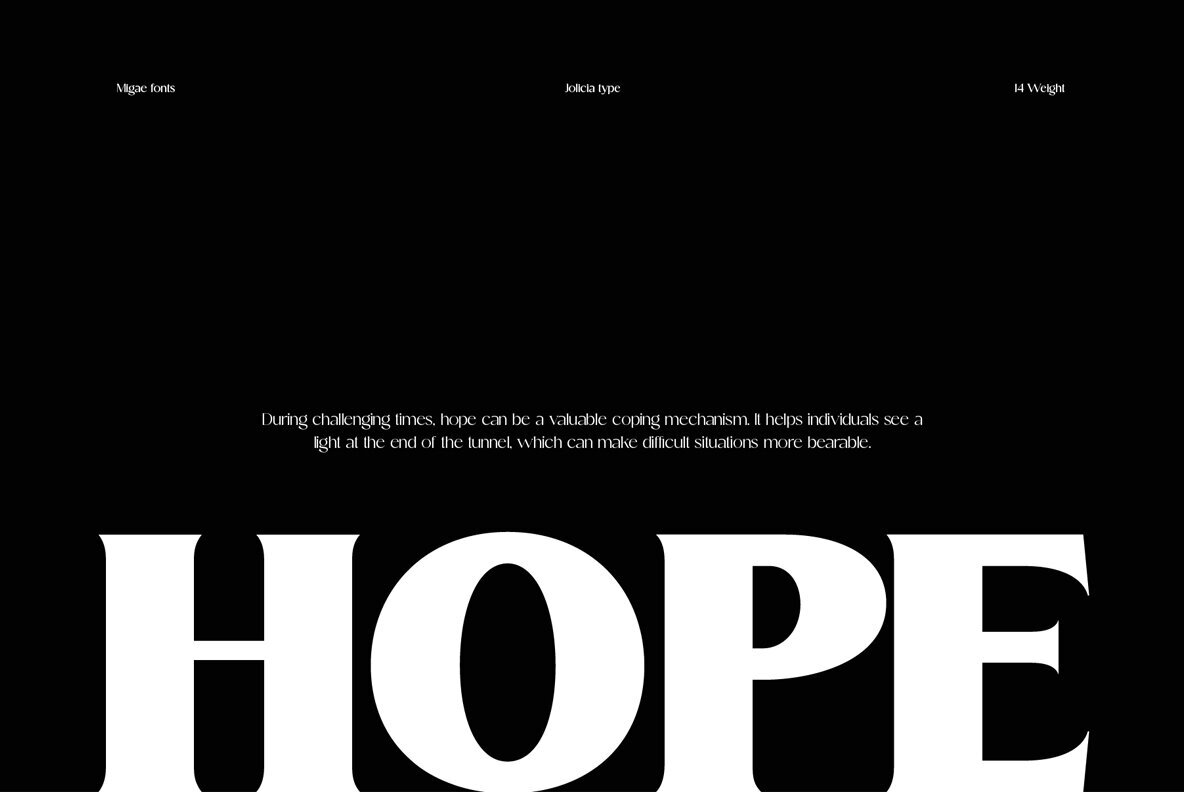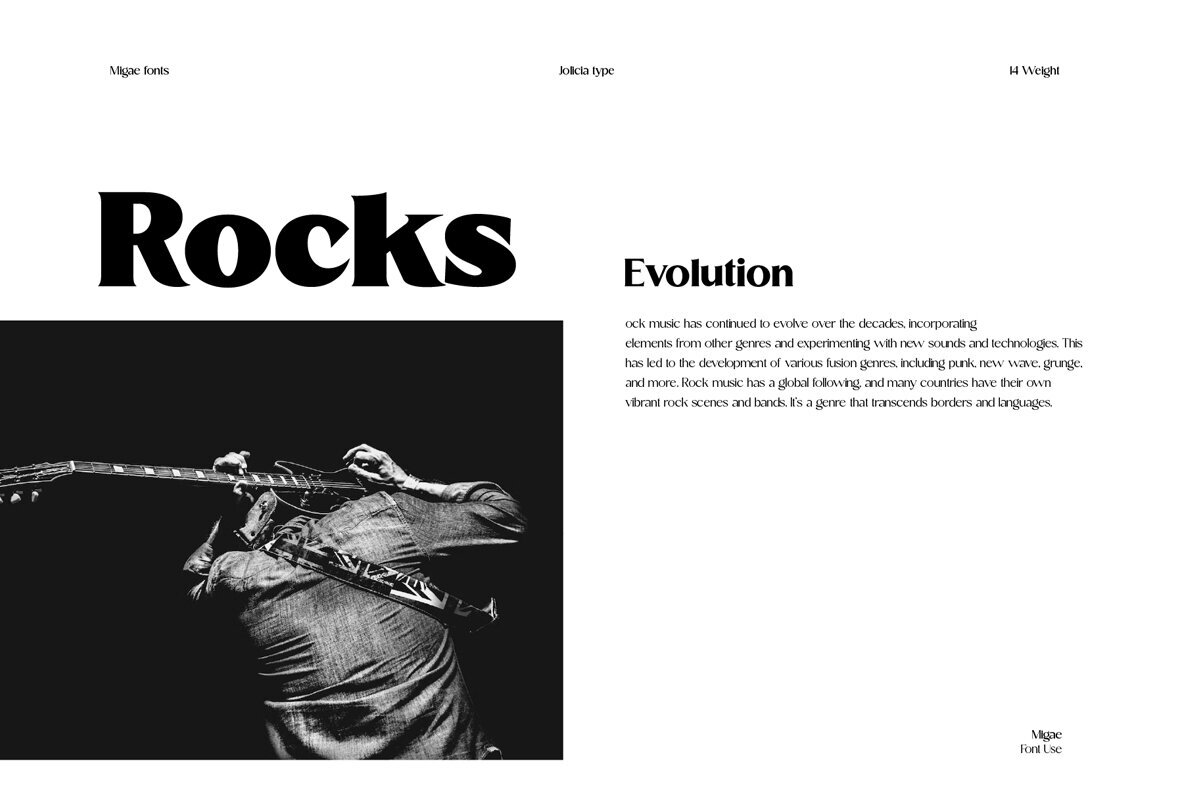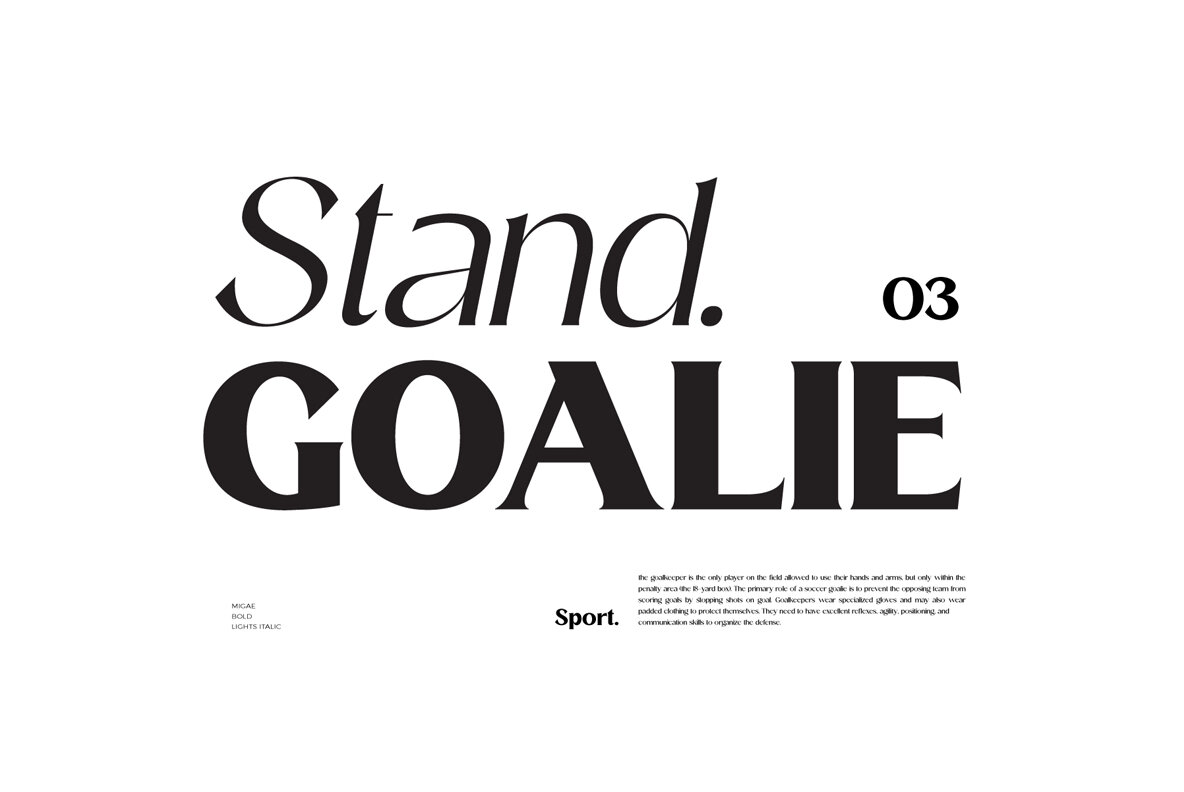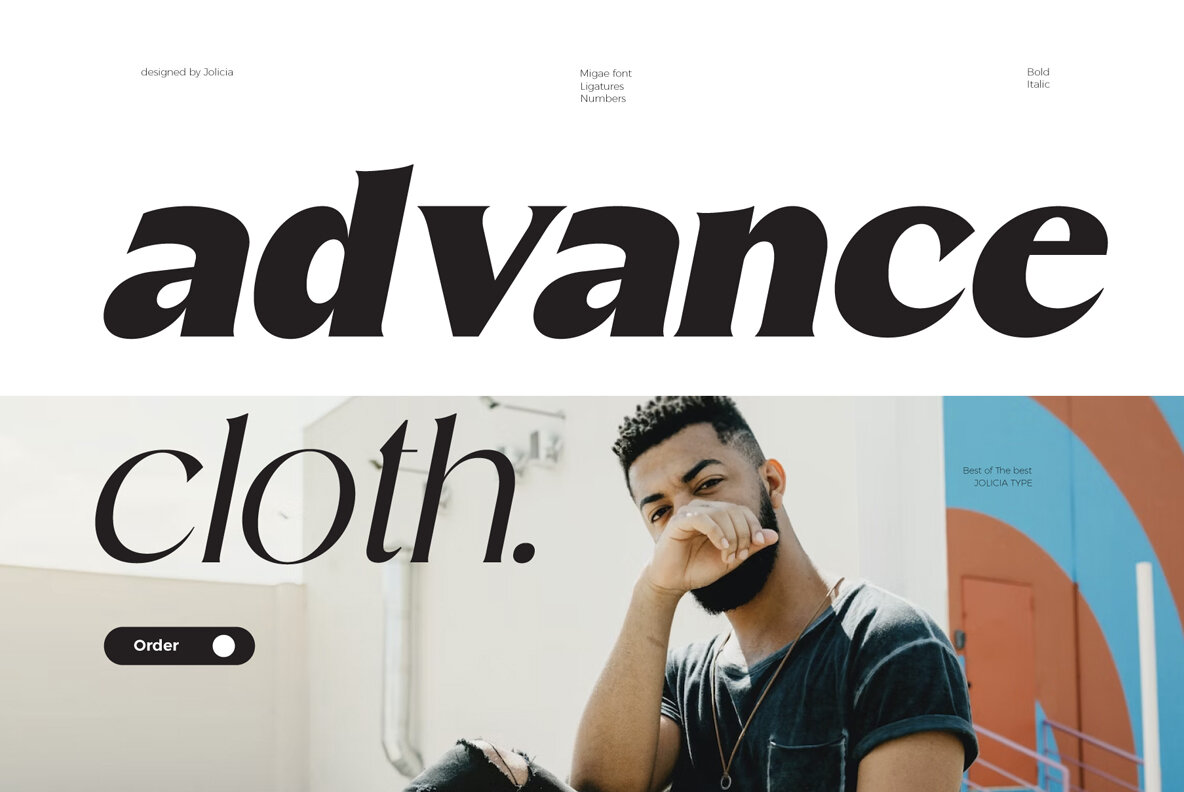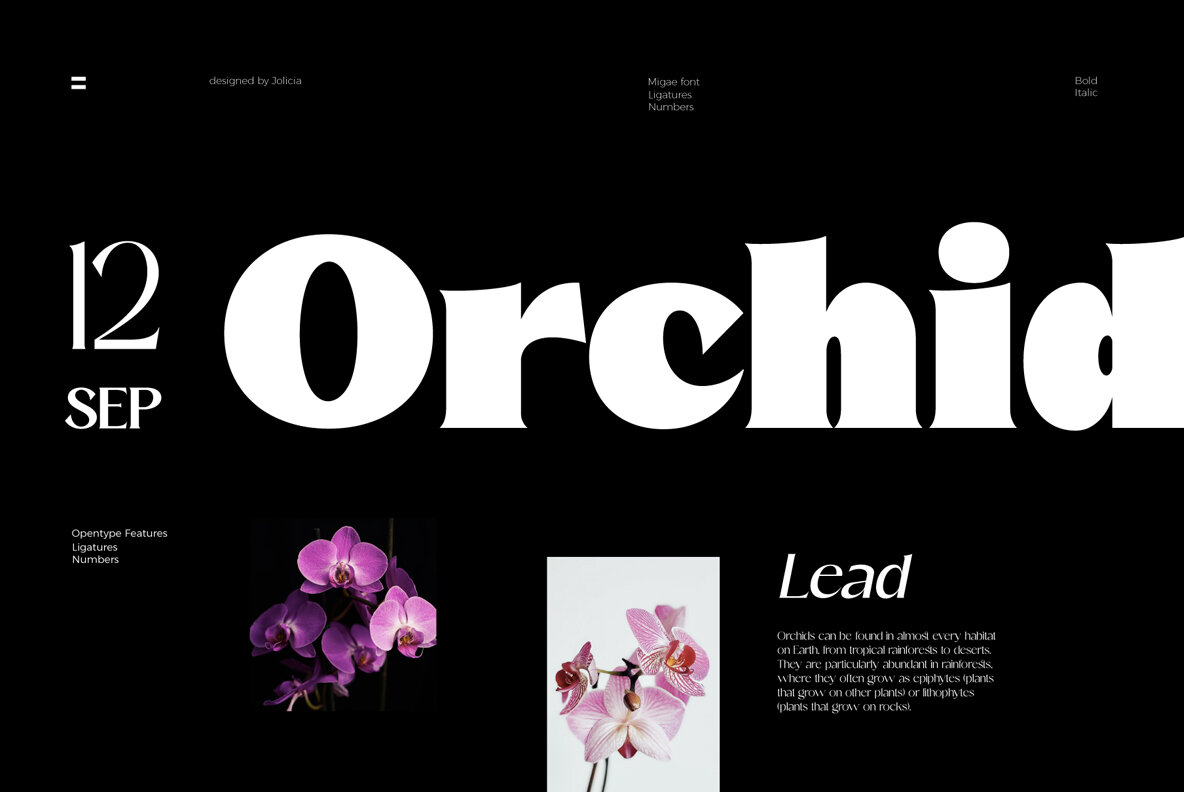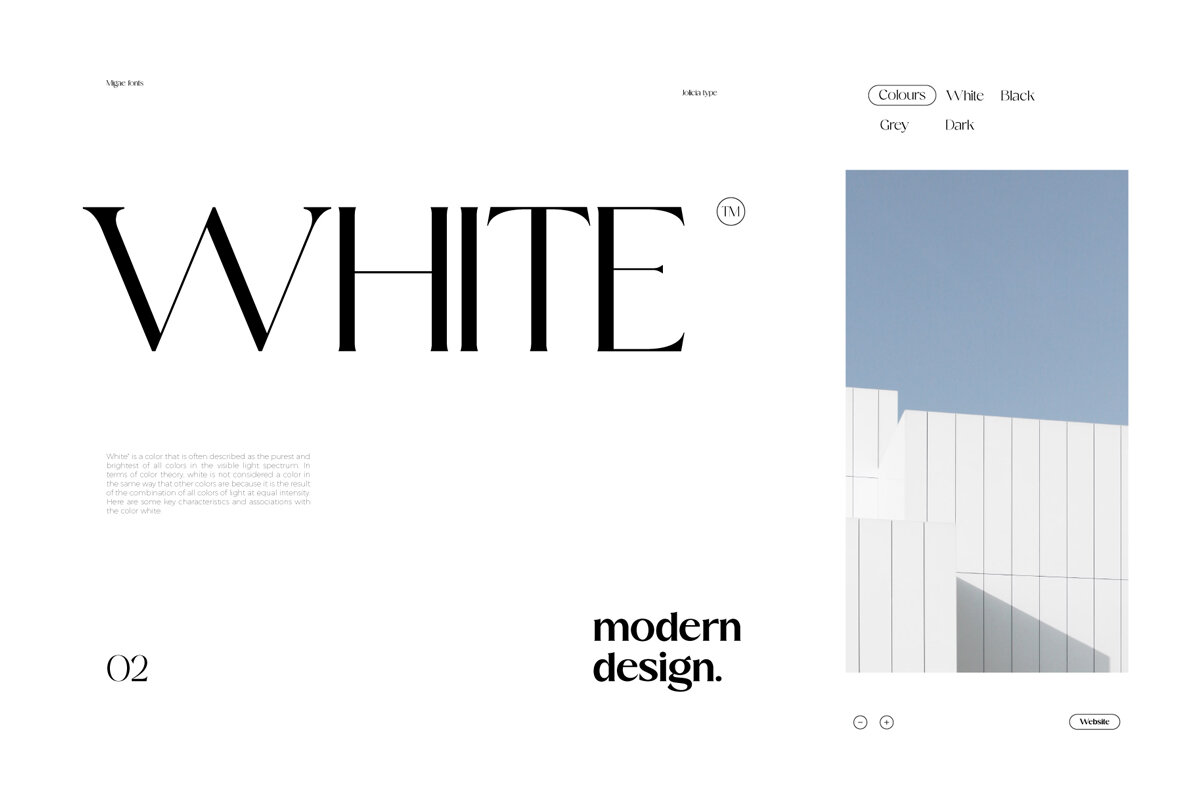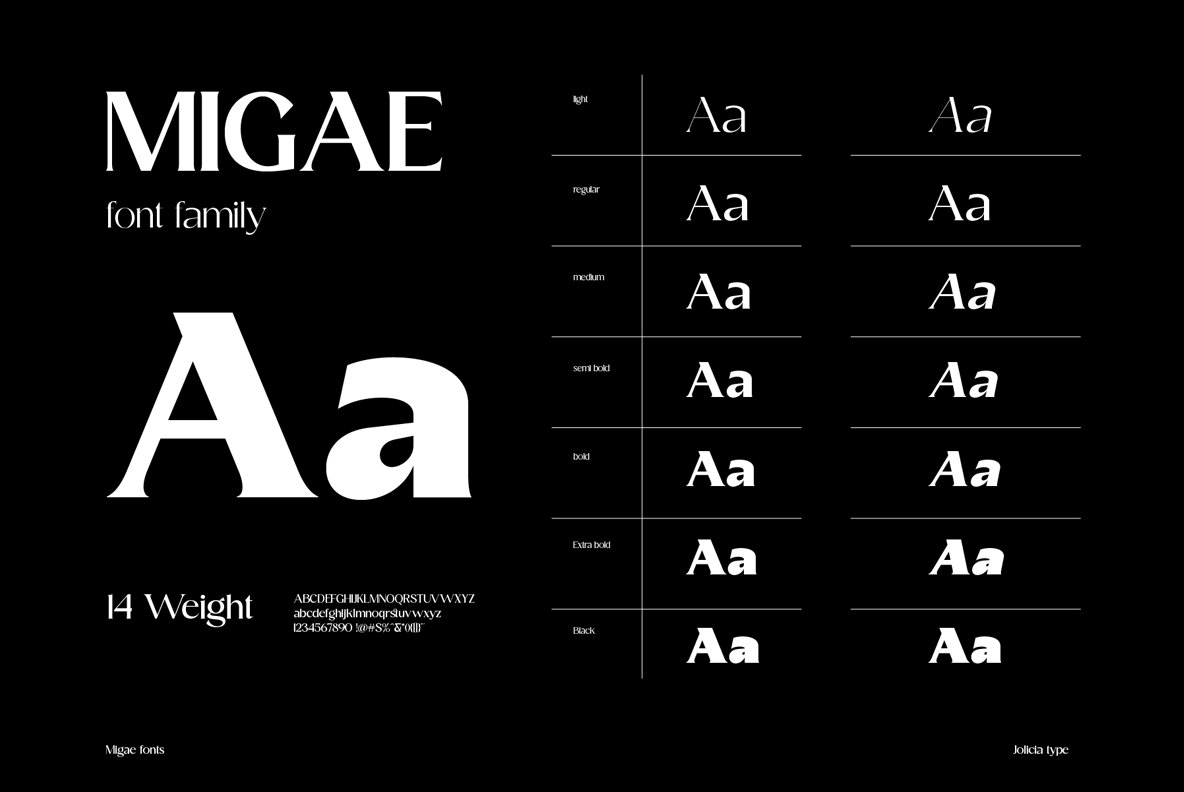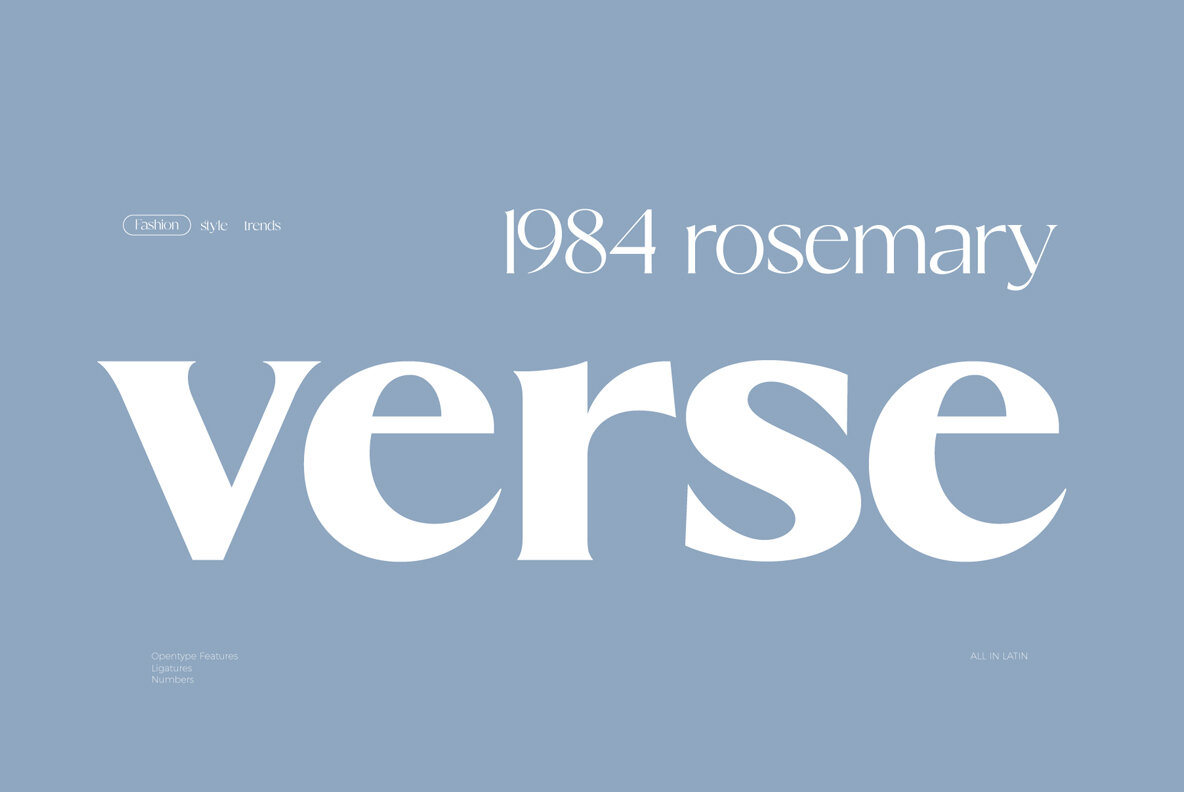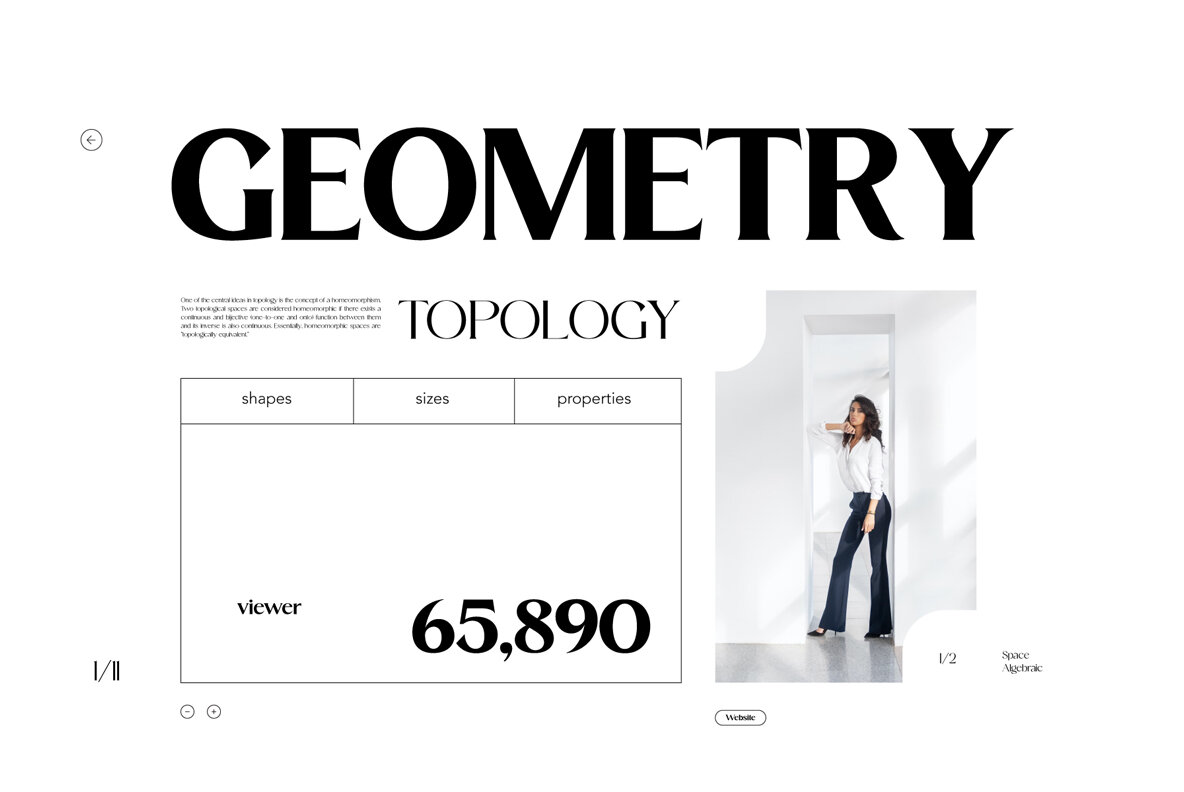
Migae Font
Migae is a versatile and elegant display font designed to captivate and engage audiences across a wide range of design applications. With 14 distinct weight variants spanning from delicate Light to commanding Black, and complemented by a refined set of italics, Migae offers a harmonious balance of strength and elegance to fulfill your typographic needs. Key Features: Design Inspiration: Migae draws inspiration from the harmony of nature, where strength and elegance coexist. Its name, derived from the Korean word "미래" (miraee), meaning "future," reflects its forward-thinking design approach that is equally rooted in tradition and innovation. Ideal Usage: Migae is an ideal choice for those seeking a display font that can effortlessly transition between bold and delicate, exuding confidence and refinement in every style. It's perfect for branding, packaging, advertising, editorial layouts, and any design project where typography plays a pivotal role. Migae is more than just a font; it's a design companion that empowers creatives to achieve a perfect balance between strength and elegance in their visual communications. Explore the world of Migae and let your design projects shine with its captivating charm and versatility.